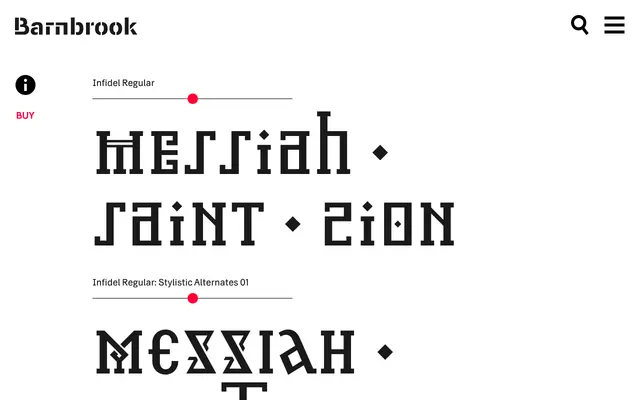
Infidel
A typeface drawn from the letterforms of the Lindisfarne Gospels, designed in direct response to post-9/11 religious intolerance.
Derived from insular manuscript hands of the early medieval period, the letterforms sit at a deliberate distance from contemporary legibility conventions. The confrontational name is set in pointed tension with the serene, devotional source material, making the design as much a political statement as a typographic one. Barnbrook conceived the pairing of historically religious forms with an inflammatory label to expose the contradictions embedded in religious intolerance.
Based directly on letterforms from the Lindisfarne Gospels and comparable medieval manuscripts, placing it firmly in the insular/blackletter tradition of early medieval Latin scripts rather than later Gothic textura.